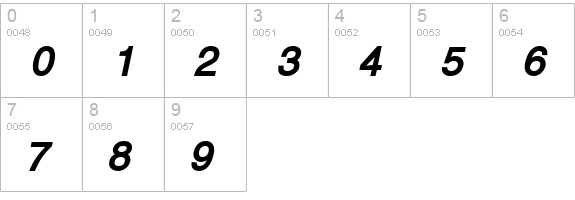
Alps Bold Italic is a strong, high-contrast, italic variant in the Alps typeface family \xE2\x80\x94 well suited to headlines, attention-grabbing titles, and strong calls-to-action.
Alps Bold Italic font is a stunning display typeface that exudes elegance and sophistication. Its bold and italic design commands attention and makes a bold statement in any design project. The sleek curves and sharp angles of this font give it a modern and stylish look that is perfect for a wide range of applications. What makes Alps Bold Italic font even more appealing is that it is available for free download at FontsMarket.com. This means that you can easily access this high-quality font without any cost, making it a valuable asset for your design arsenal. Whether you are working on branding, advertising, packaging, or any other project that requires a touch of class, Alps Bold Italic font is sure to elevate your design to the next level. Download it today and add a touch of sophistication to your creations!